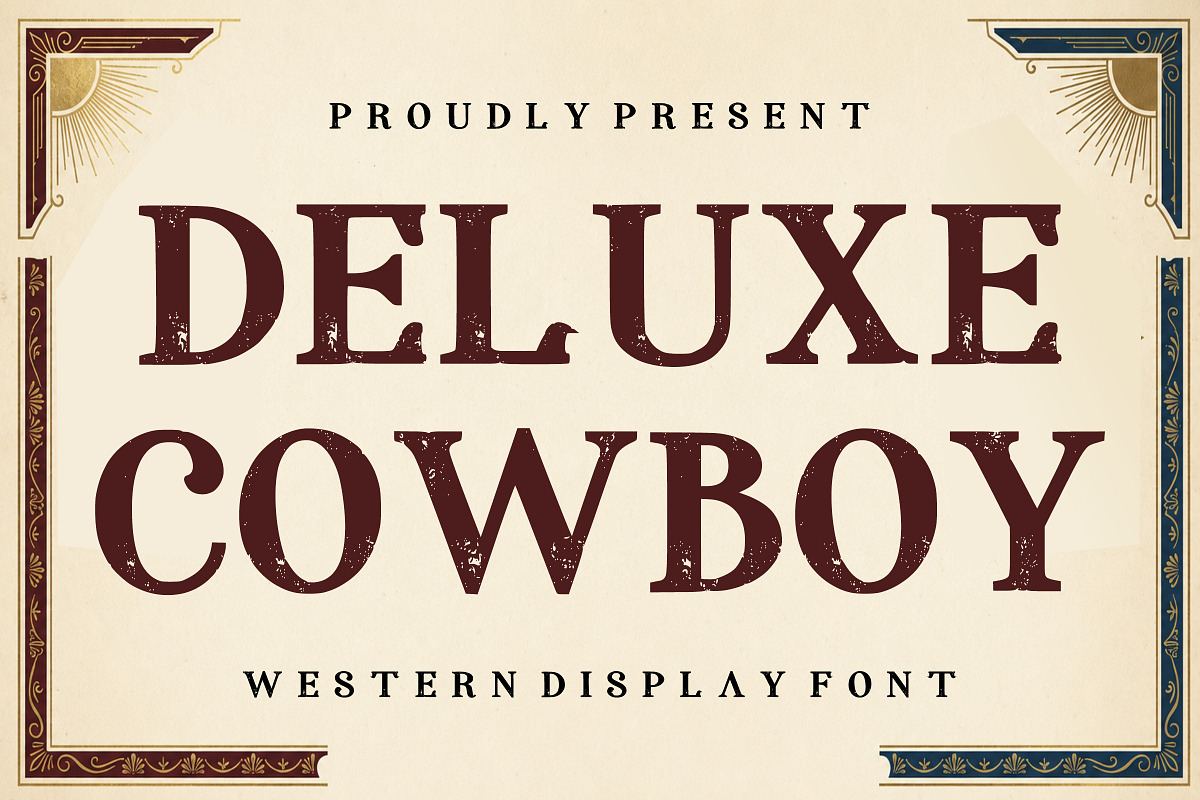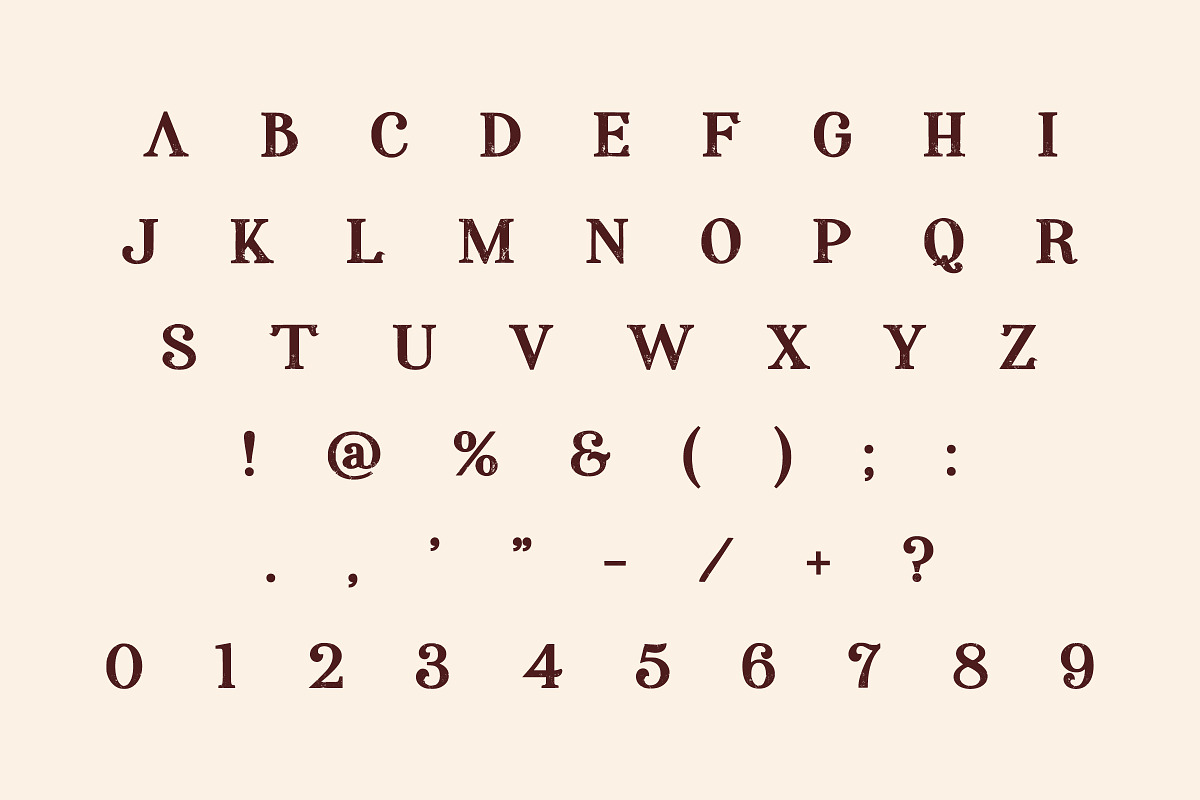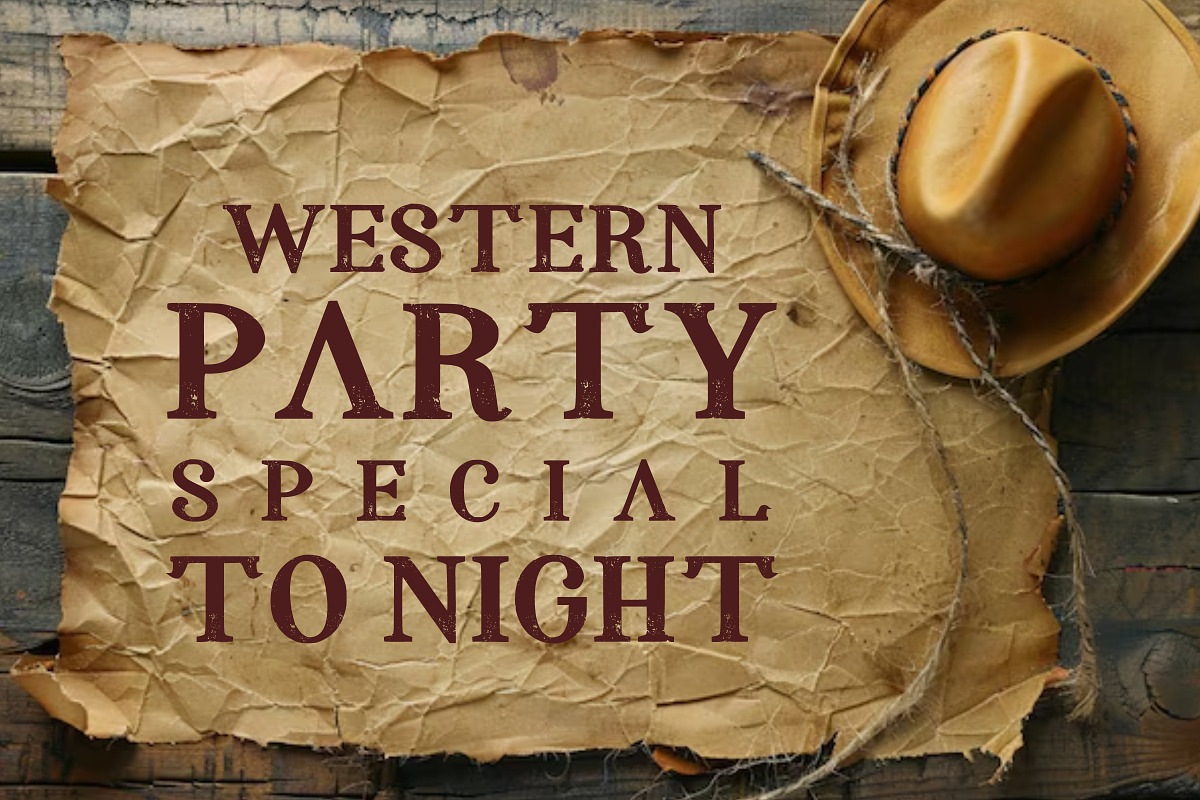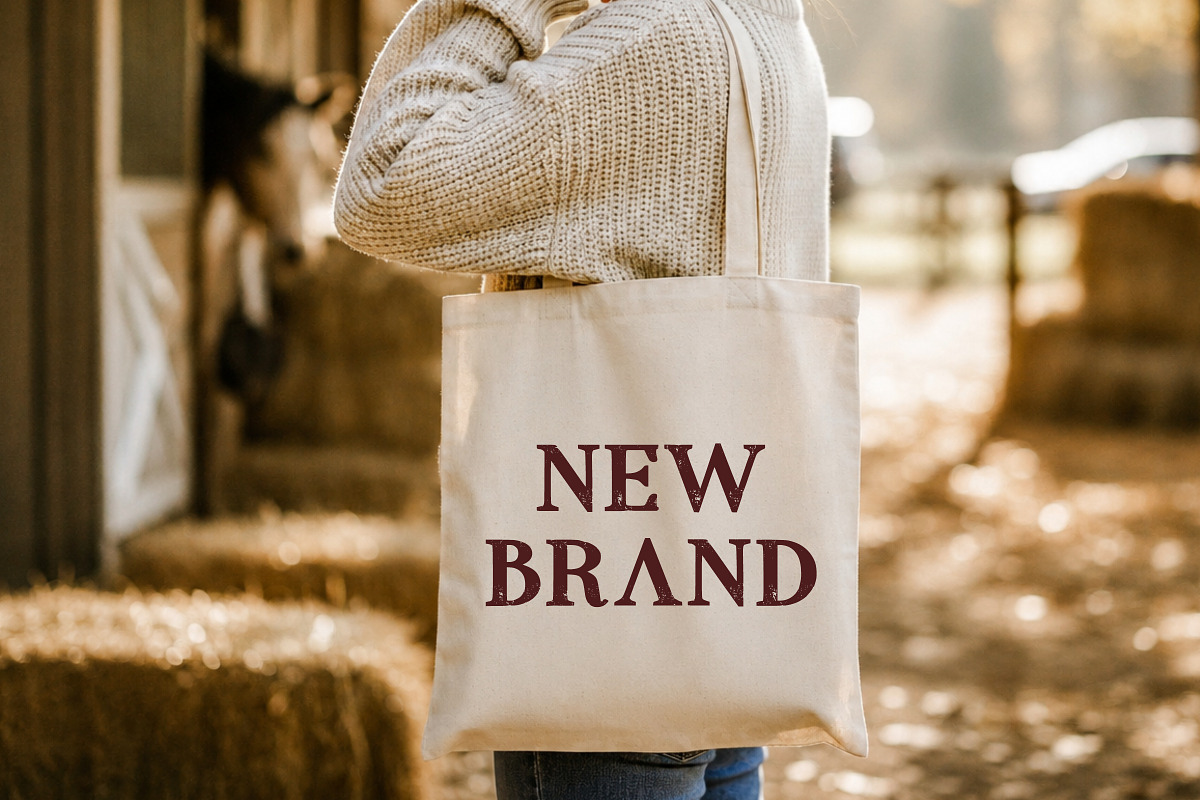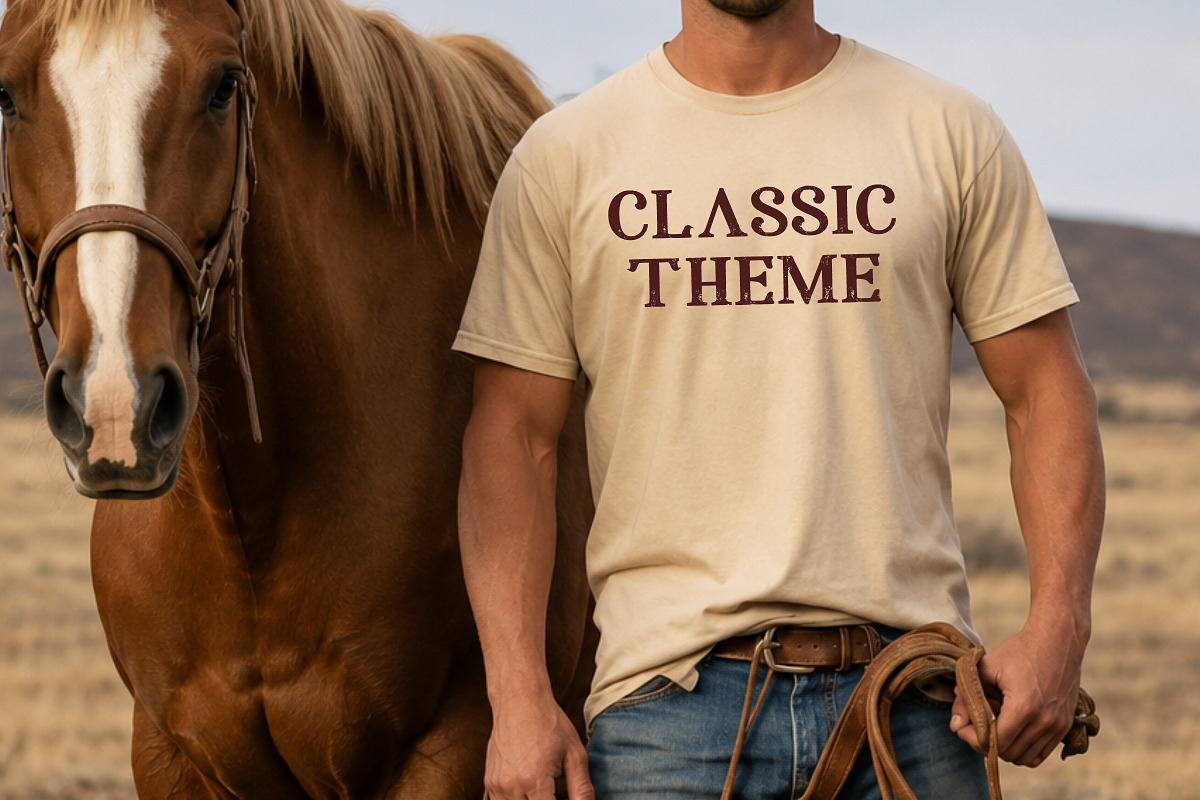
Deluxe Cowboy – Vintage Western
Bring the spirit of the Old West to your designs with Deluxe Cowboy, a bold vintage display font inspired by classic western typography. Featuring strong serif letterforms with a distressed texture, this font captures the authentic look of rustic saloon signs, cowboy posters, and heritage branding.
Whether you're designing western logos, country event posters, whiskey packaging, BBQ branding, leather goods, farm products, or retro merchandise, Deluxe Cowboy delivers timeless character with a rugged vintage appeal.
Its bold presence and classic styling make it perfect for both digital and print projects that need an authentic western aesthetic.
Distressed Vintage Style
Western Logos
Cowboy Branding
Ranch Signs
Saloon Posters
Whiskey & Bourbon Labels
BBQ Restaurant Branding
Country Music Events
Vintage Packaging
Leather Craft Branding
Farm Market Products
Apparel & T-Shirts
Stickers
Posters